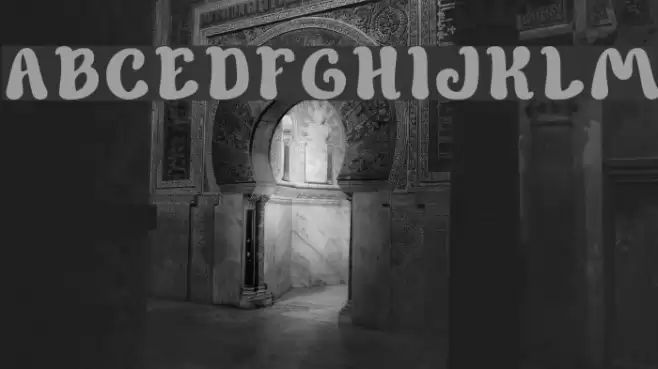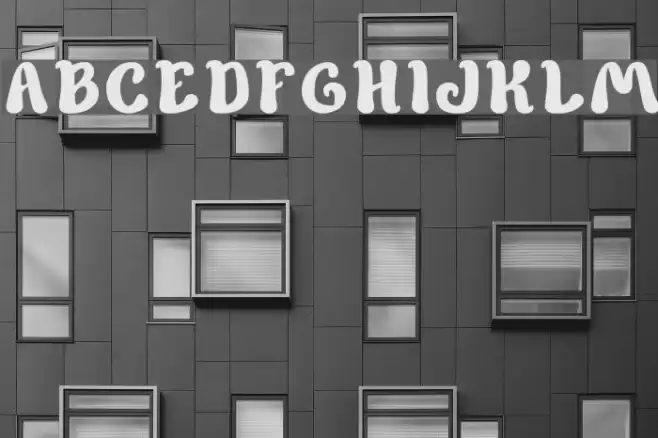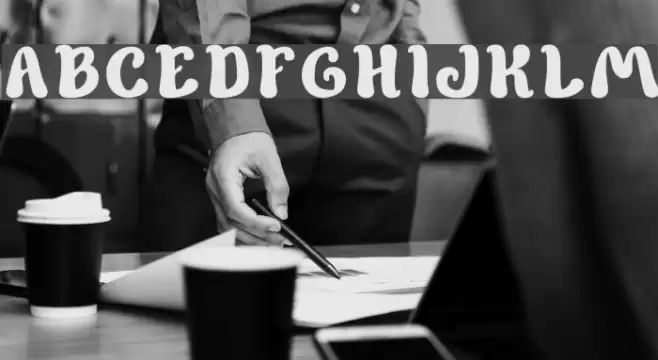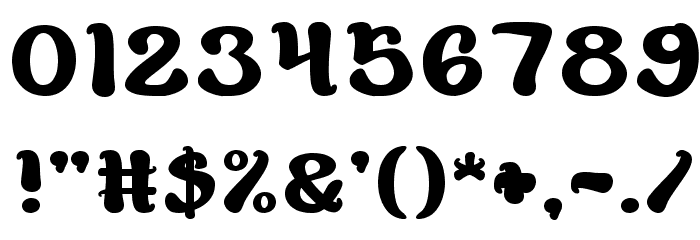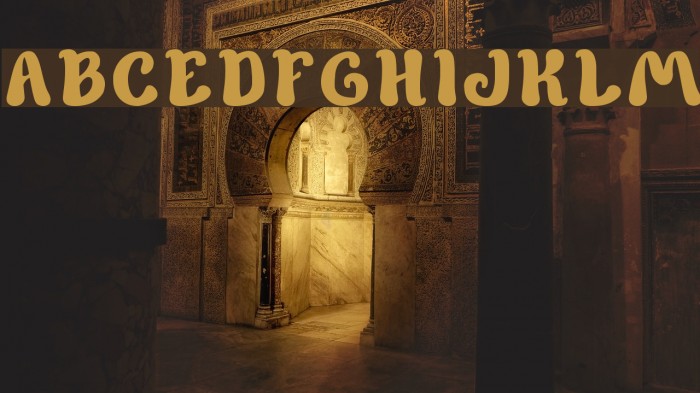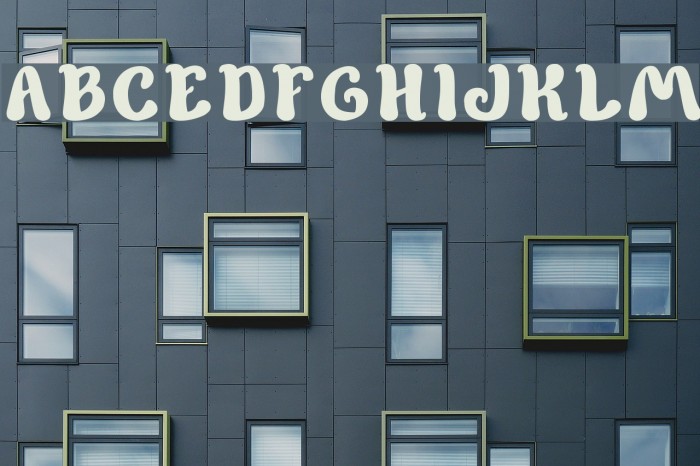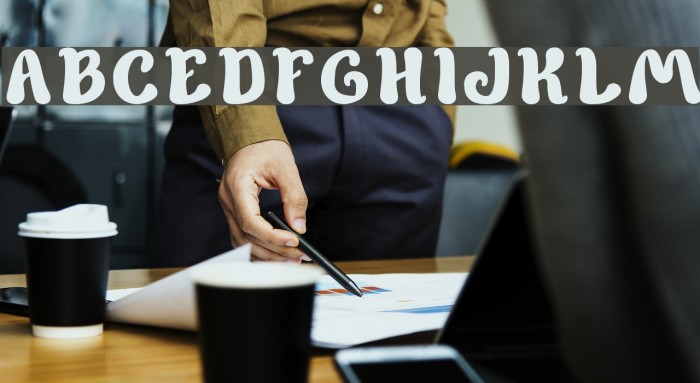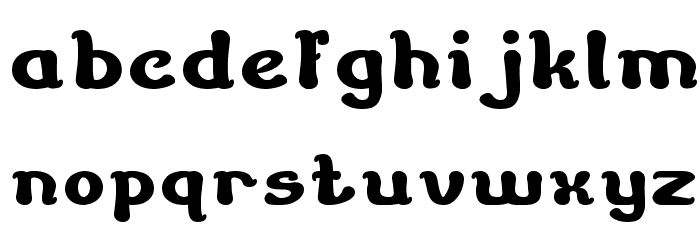
Children Stories Bold Font
Children Stories Bold Description
This playful and whimsical font features bold, rounded characters with a slightly uneven baseline, giving it a hand-drawn, childlike appearance. The letters are thick and bubbly, with soft curves and a friendly demeanor, making it ideal for projects aimed at children or those that require a fun and informal touch. The numbers and special characters maintain the same playful style, ensuring consistency across all text elements. Its boldness and unique style make it stand out, perfect for capturing attention in headlines or titles.
A bold, playful font with rounded, hand-drawn characters from Uncategorized fonts.
- Proposed Projects: Ideal for children's books, playful branding, educational materials, and fun posters.
- Overall Style: Playful, Whimsical
- Use Case: Headlines, Children's materials, Posters